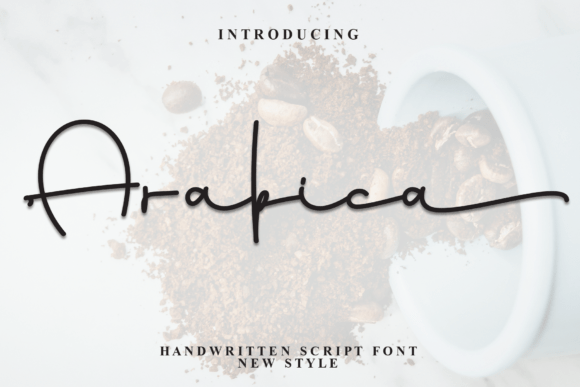
Arabica Font: The Perfect Handwritten Font for Your Creative Work
Arabica Font is a beautiful, fresh, and delightful handwritten font that can add a cheerful and elegant vibe to your creative work. With its smooth curves, tall letterforms, and playful charm, it’s perfect for a wide range of design projects, from branding and logos to greeting cards, packaging, social media posts, and more.
What Makes Arabica Font So Special?
Arabica Font is a unique and eye-catching font that stands out from the crowd. Its smooth curves and tall letterforms give it a elegant and sophisticated look, while its playful charm adds a touch of whimsy and fun. This font is perfect for designers who want to add a personal touch to their work and create a lasting impression on their audience.
Key Features of Arabica Font
- Smooth Curves: Arabica Font features smooth, flowing curves that give it a elegant and refined look.
- Tall Letterforms: The font’s tall letterforms make it perfect for headlines, titles, and other display text.
- Playful Charm: Arabica Font has a playful and whimsical charm that adds a touch of personality to your design.
- Handwritten Style: The font’s handwritten style gives it a personal and unique touch that’s perfect for creative projects.
Uses of Arabica Font
Arabica Font is a versatile font that can be used for a wide range of design projects, including:
- Branding: Use Arabica Font to create a unique and memorable brand identity that stands out from the crowd.
- Logos: The font’s elegant and playful style makes it perfect for logos and other graphical elements.
- Greeting Cards: Add a personal touch to your greeting cards with Arabica Font’s beautiful handwritten style.
- Packaging: Use Arabica Font to create eye-catching packaging that stands out on store shelves.
- Social Media Posts: Add a touch of personality to your social media posts with Arabica Font’s playful and whimsical style.
Benefits of Using Arabica Font
Using Arabica Font in your design projects can have a number of benefits, including:
- Unique and Memorable: Arabica Font is a unique and memorable font that can help your design stand out from the crowd.
- Elegant and Sophisticated: The font’s elegant and sophisticated style makes it perfect for high-end brands and luxury products.
- Playful and Whimsical: Arabica Font’s playful and whimsical style adds a touch of personality to your design and can help you connect with your audience.
- Versatile: The font’s versatility makes it perfect for a wide range of design projects, from branding and logos to greeting cards and packaging.
Arabica Font is a beautiful and versatile handwritten font that’s perfect for a wide range of design projects. With its smooth curves, tall letterforms, and playful charm, it’s sure to add a touch of elegance and whimsy to your creative work. Whether you’re a designer, artist, or DIY enthusiast, Arabica Font is a great choice for anyone looking to add a personal touch to their design.
- What is Arabica Font? Arabica Font is a fresh and delightful handwritten font that’s perfect for creative projects.
- What makes Arabica Font unique? Arabica Font’s smooth curves, tall letterforms, and playful charm make it a unique and eye-catching font.
- Is Arabica Font easy to read? Yes, Arabica Font is designed to be easy to read, even at small sizes.